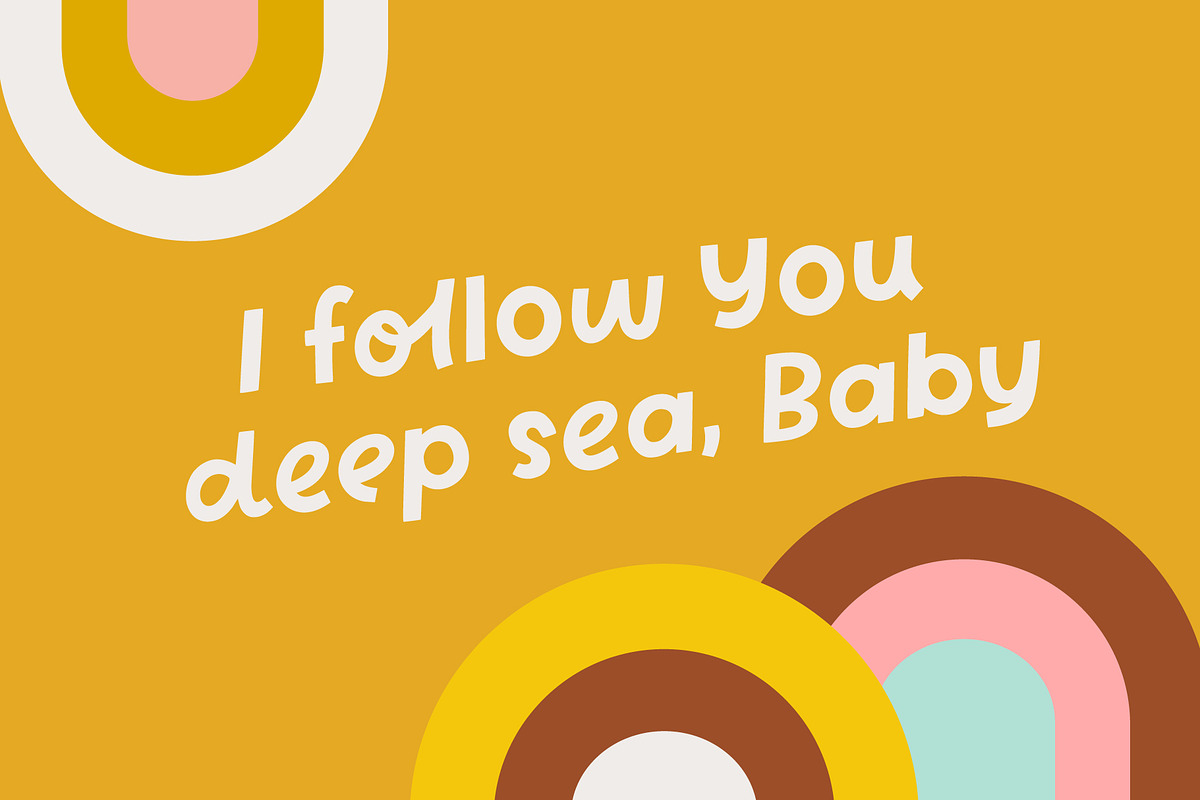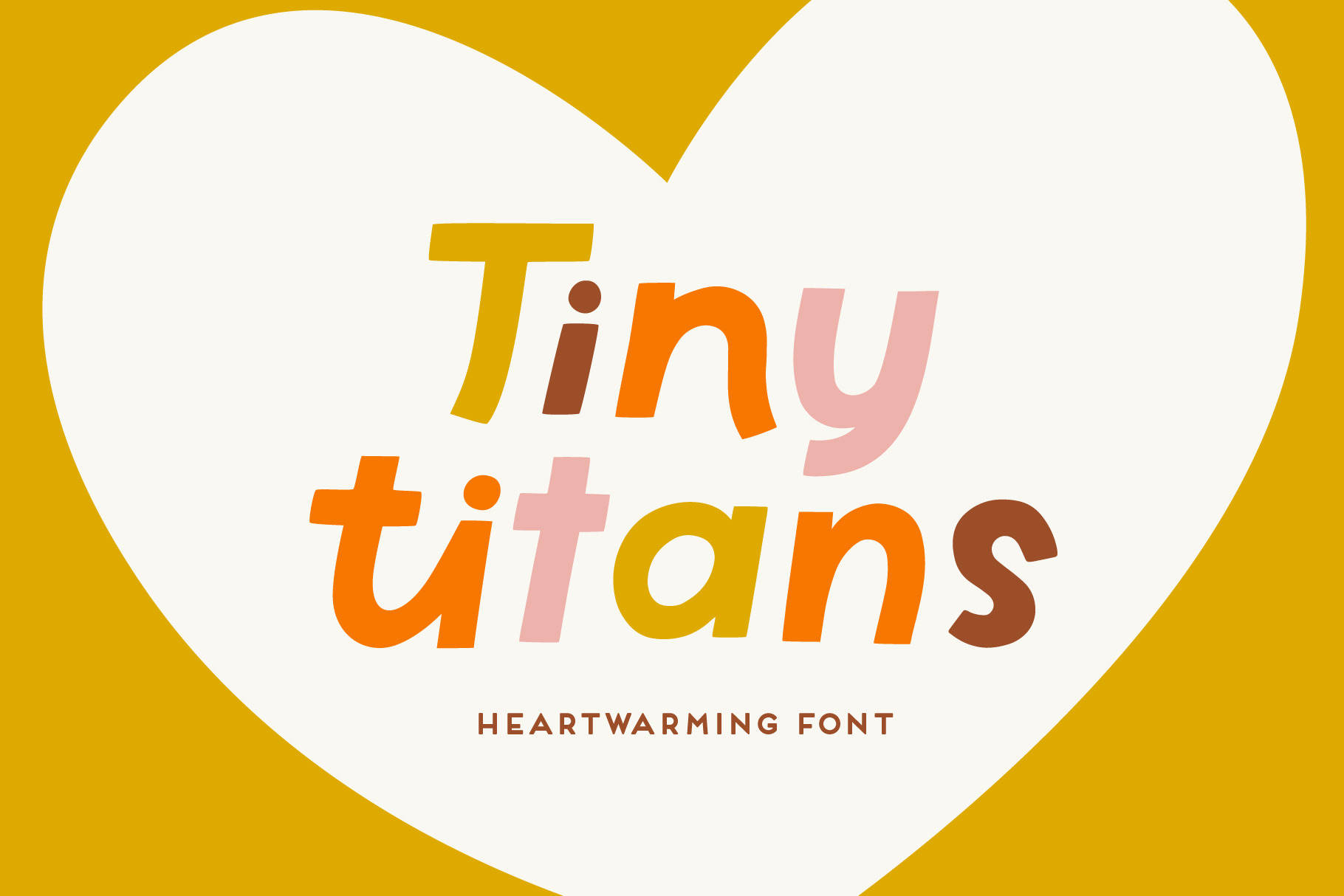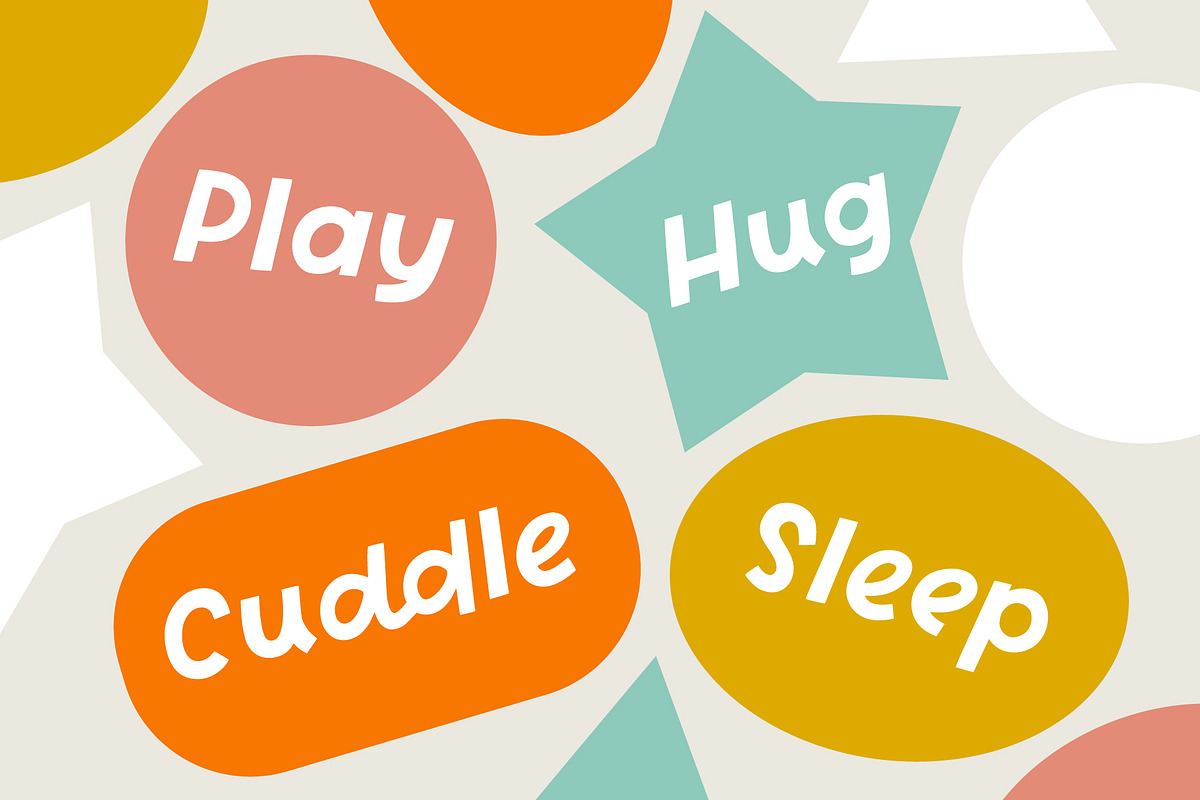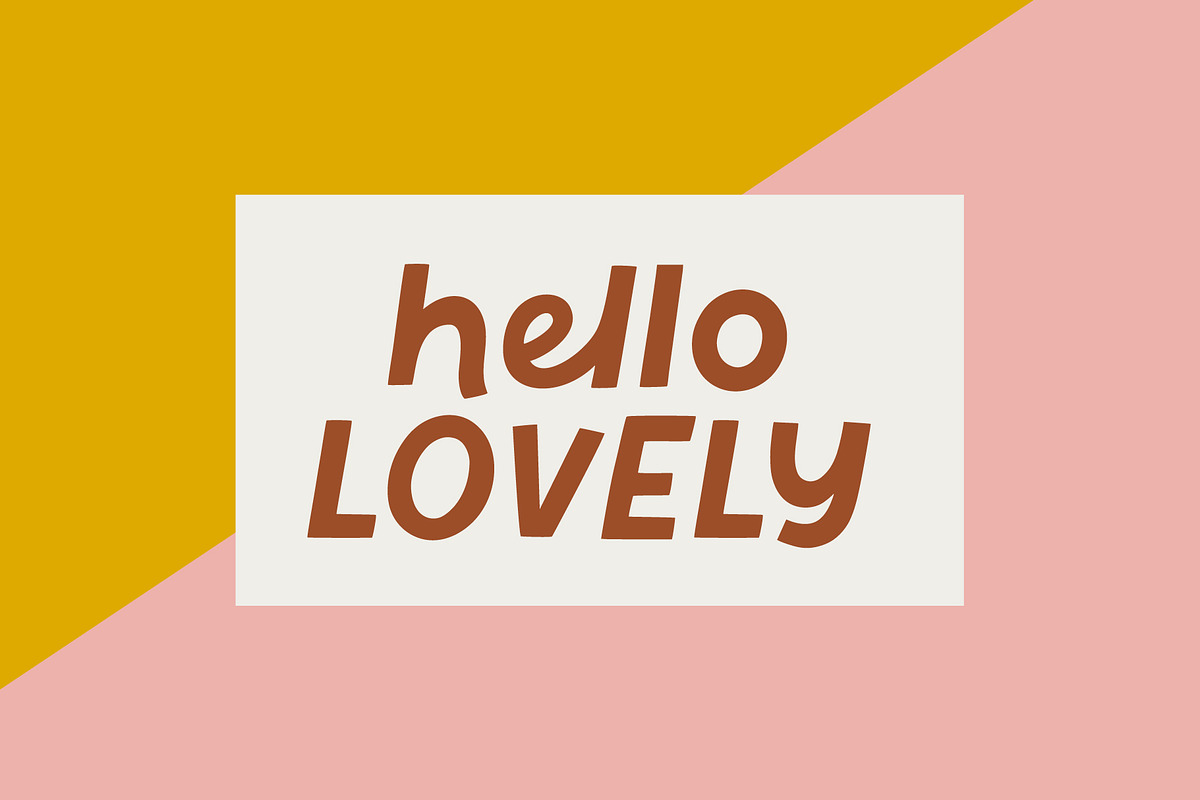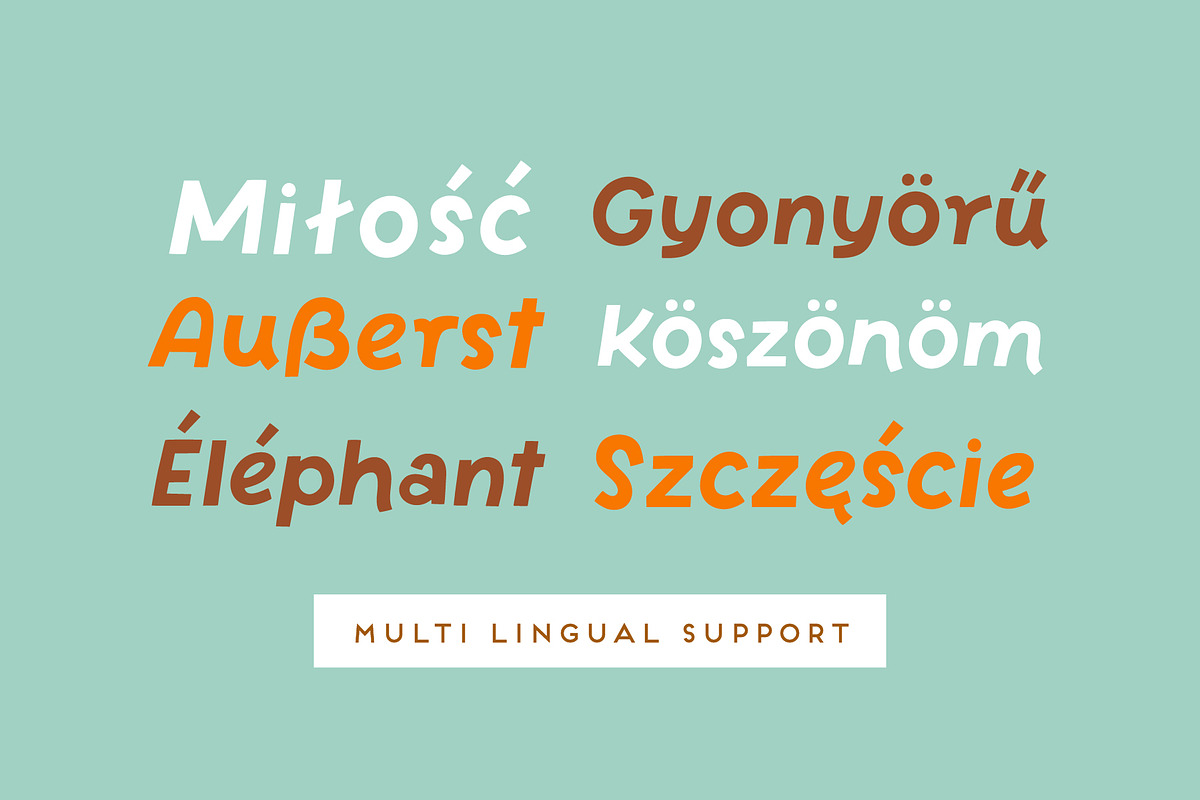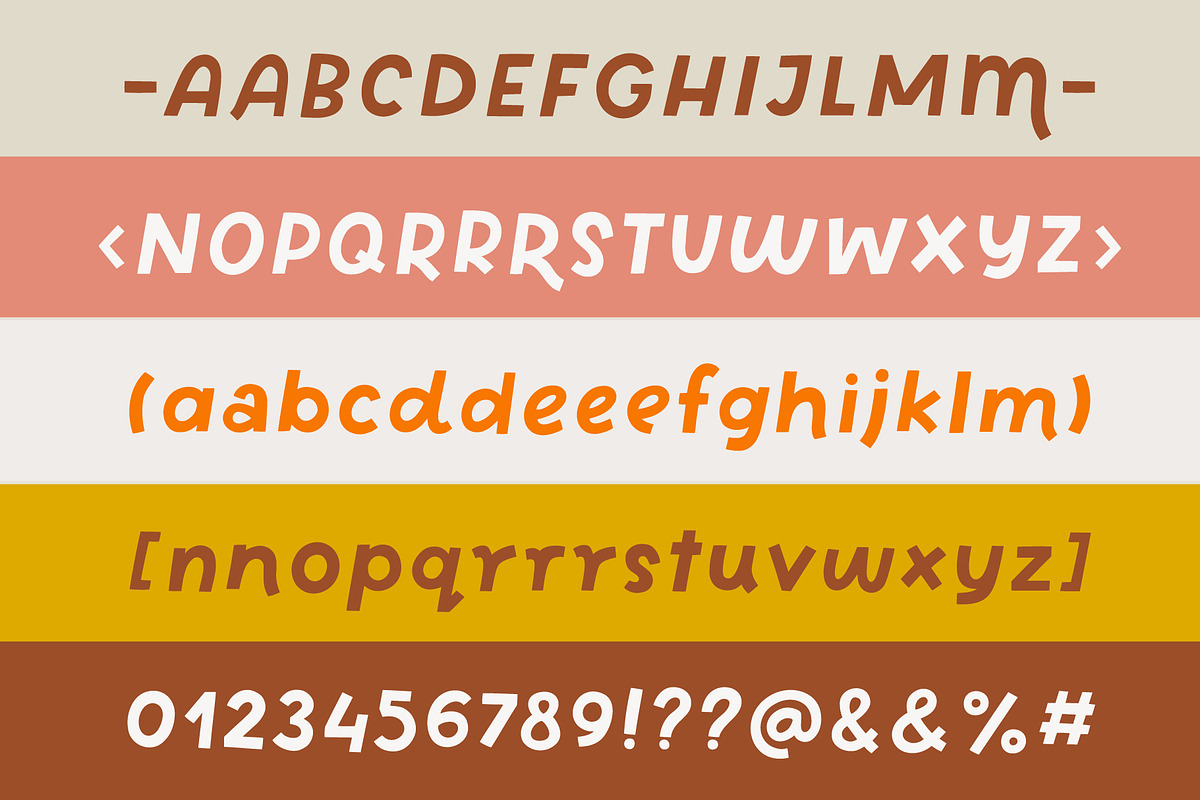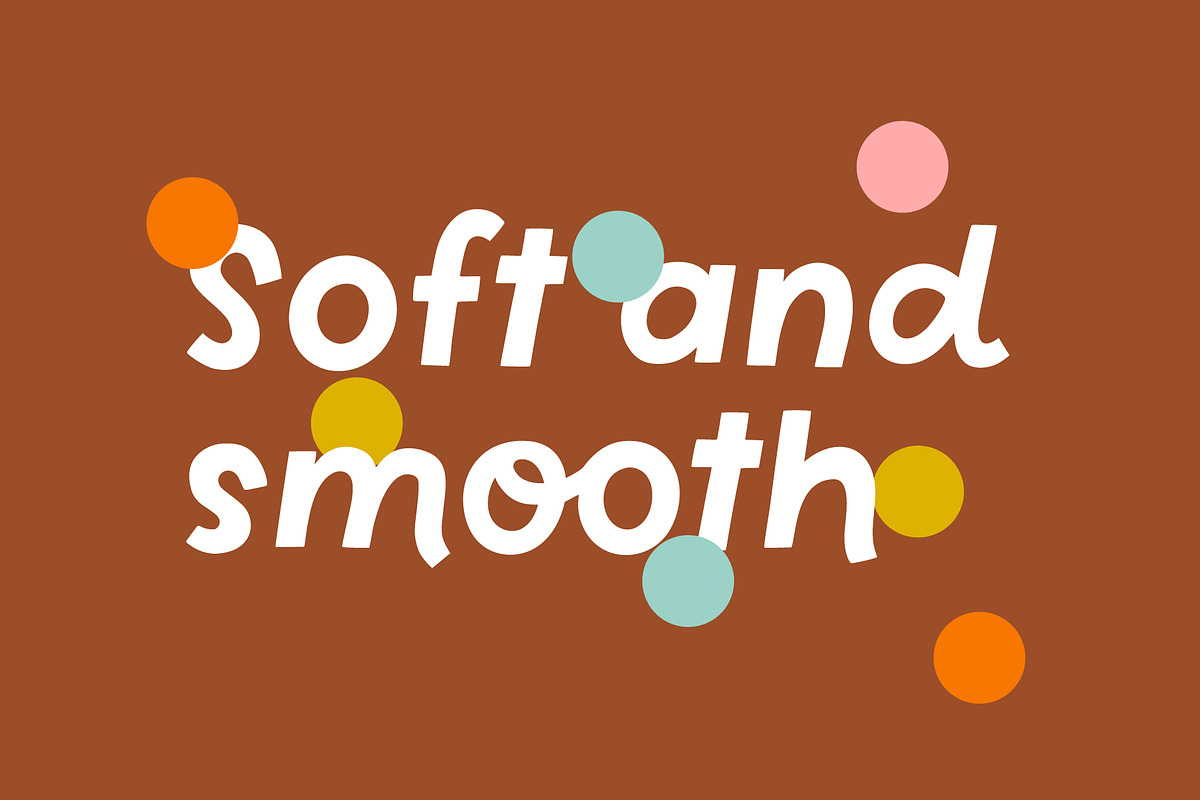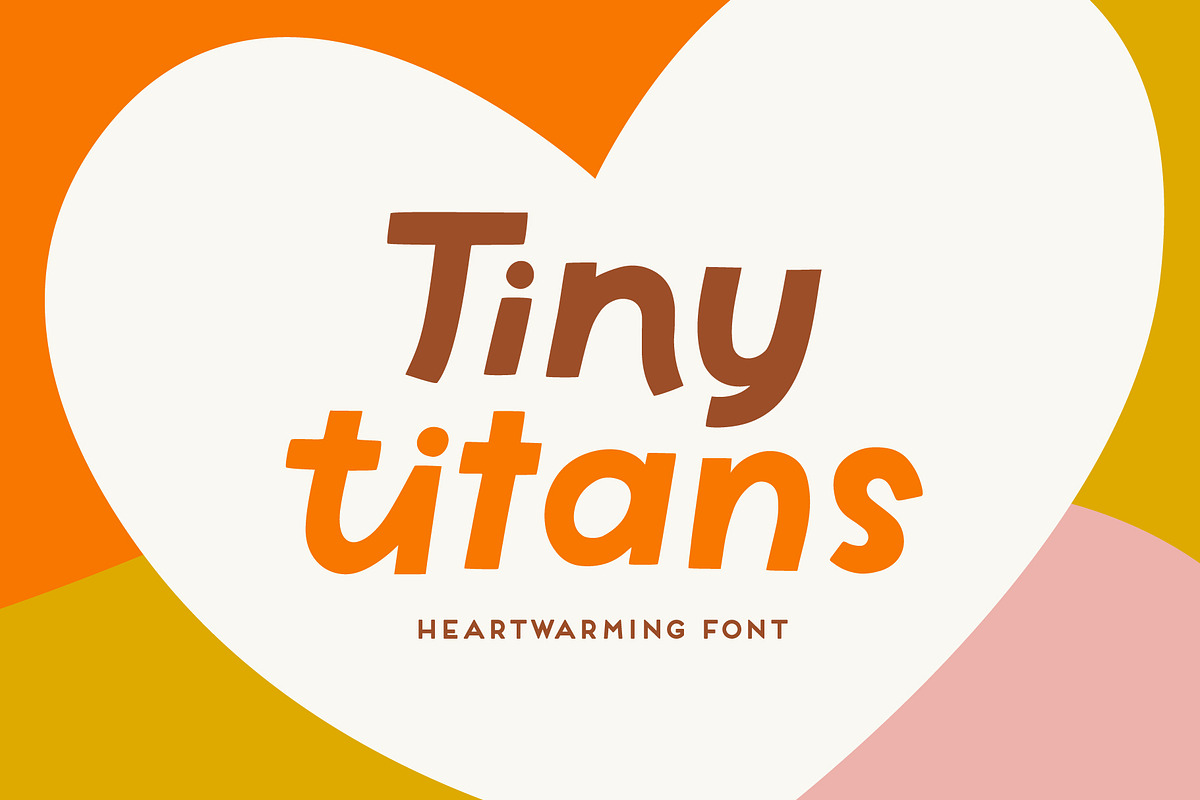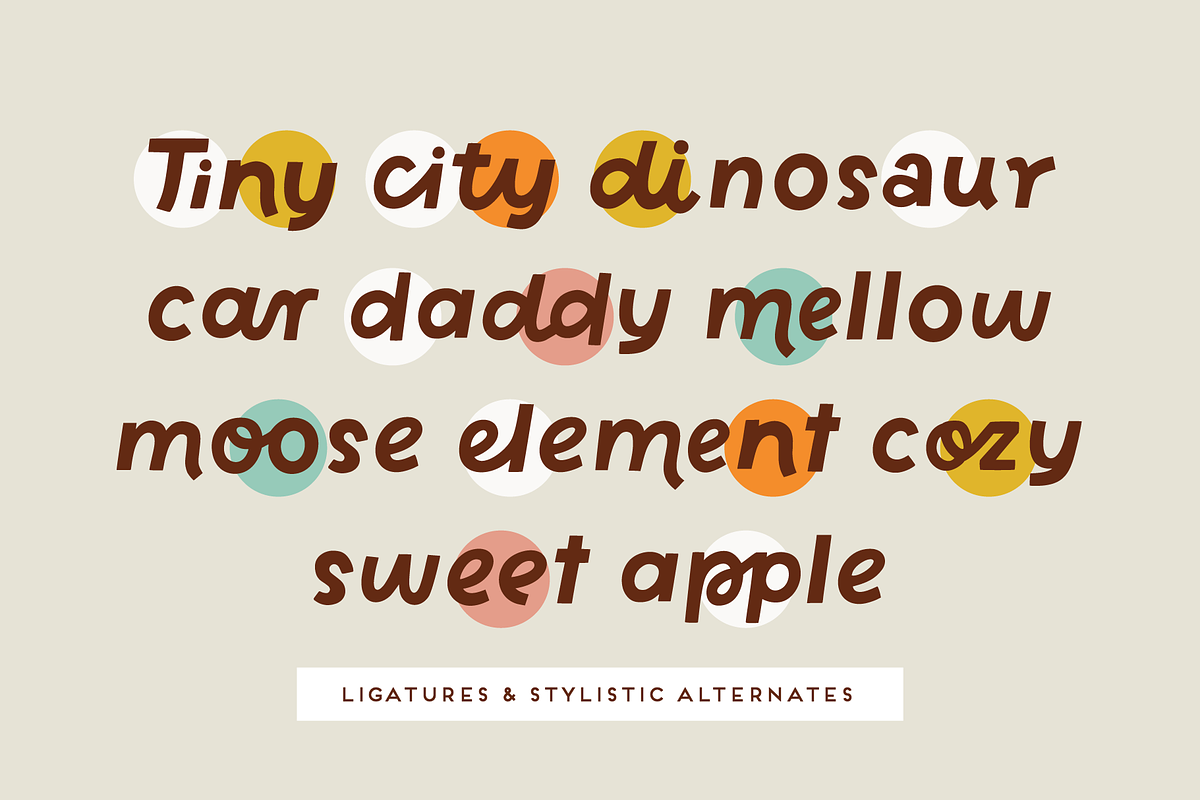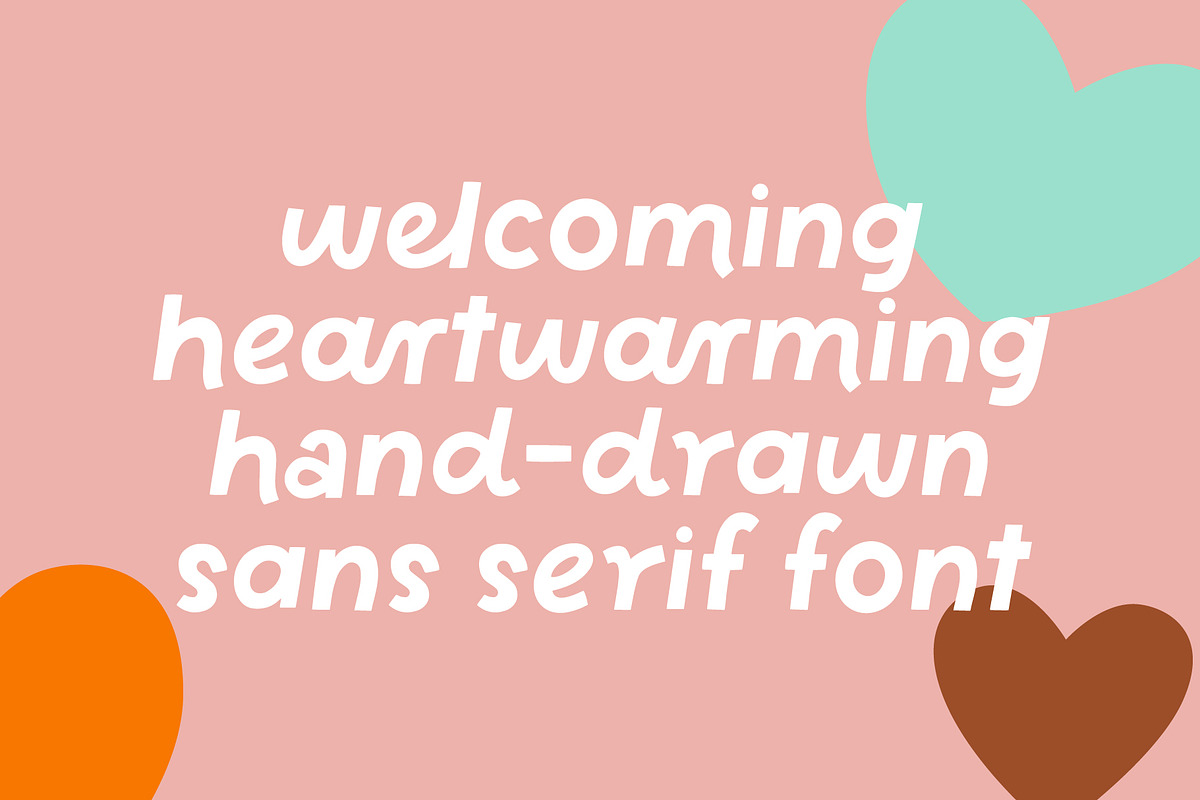
Tiny Titans | Display Font
Proudly introducing Tiny Titans - a heartwarming hand-drawn display font with plenty of ligatures and stylistic alternatives. Perfect for creating posters, logos, greeting cards, packaging and so much more! Its charming and warm character will help you give your project a truly unique feel.
- many stylistic alternates
- plenty of ligatures
- multilingual support with accented characters for international designers